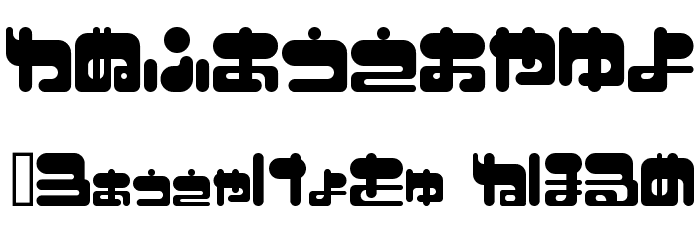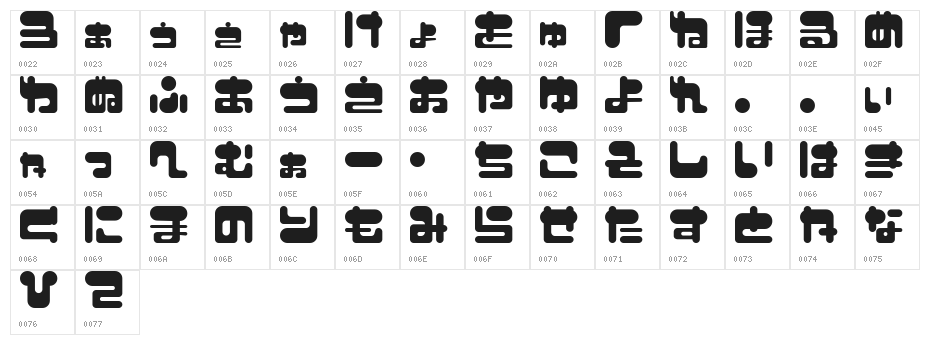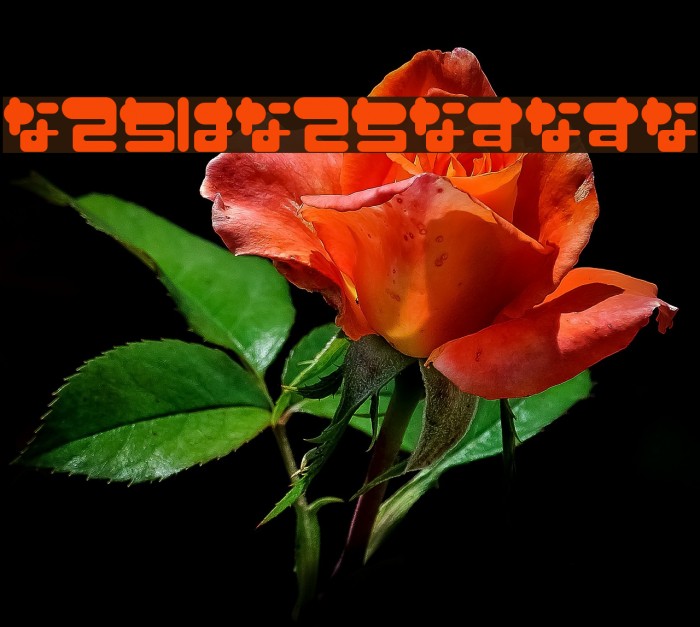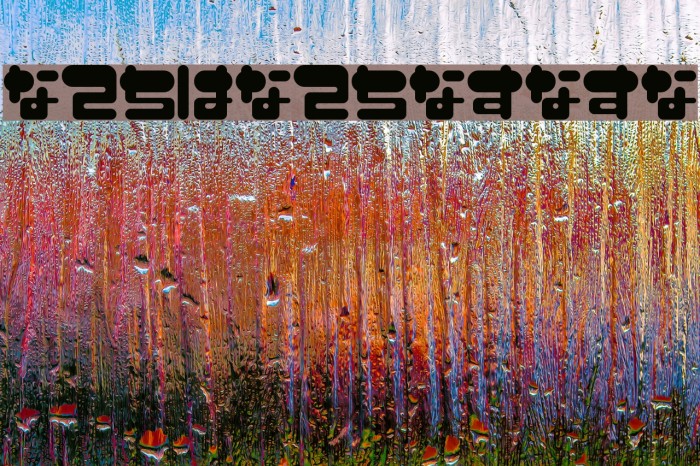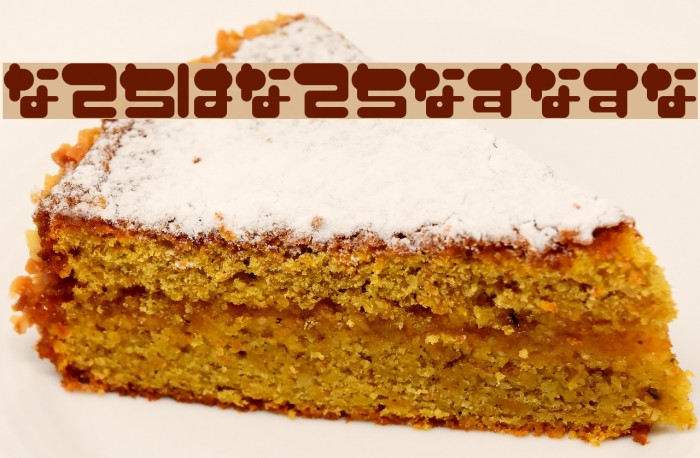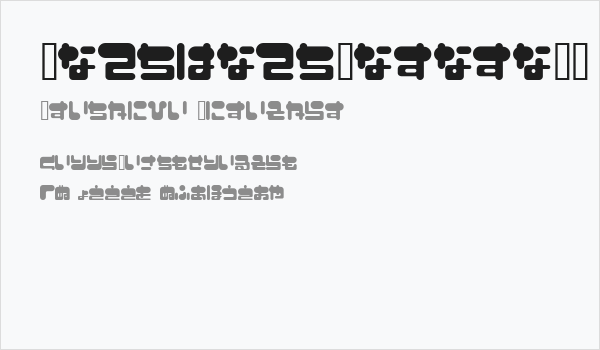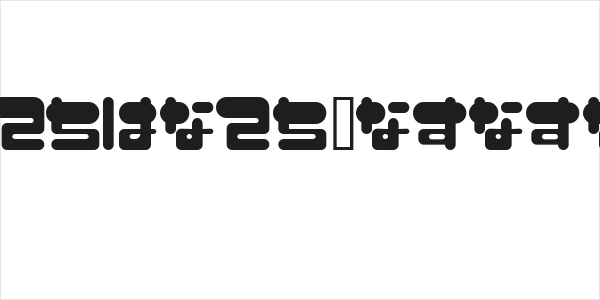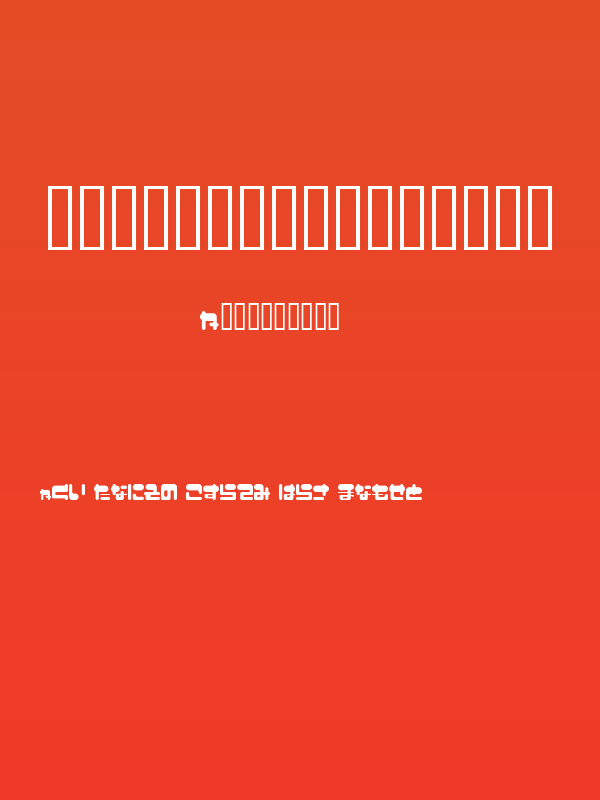
FuwafuwaFururuHS Font
FuwafuwaFururuHS Description
This font features a playful and bold design with rounded edges and a bubbly appearance. The characters are thick and have a uniform weight, creating a sense of cohesion and friendliness. The style is reminiscent of pop art, with a modern twist that makes it suitable for creative and informal projects. The font's unique structure and playful curves give it a distinctive personality, making it stand out in any design. Its boldness ensures readability while maintaining a fun and engaging aesthetic.
| Use Case | Logos, Posters, Creative Content |
| Proposed Projects | Ideal for children's books, playful branding, posters, and creative digital content. |